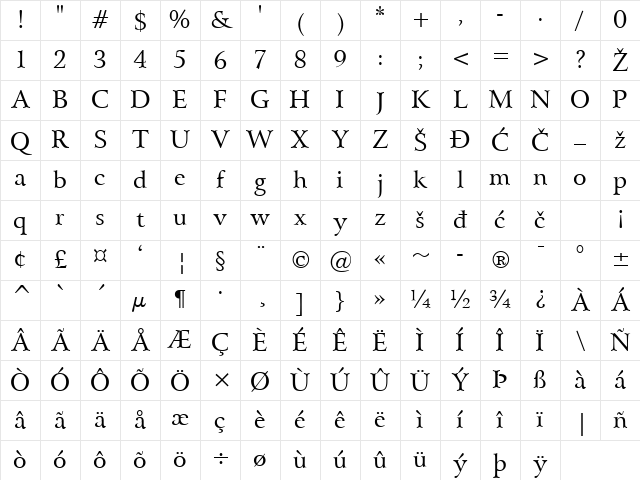
Arrus Regular
Arrus Family
Design Context for Arrus
Arrus is a composed and adaptable typeface that performs quietly and consistently across a wide range of design contexts.